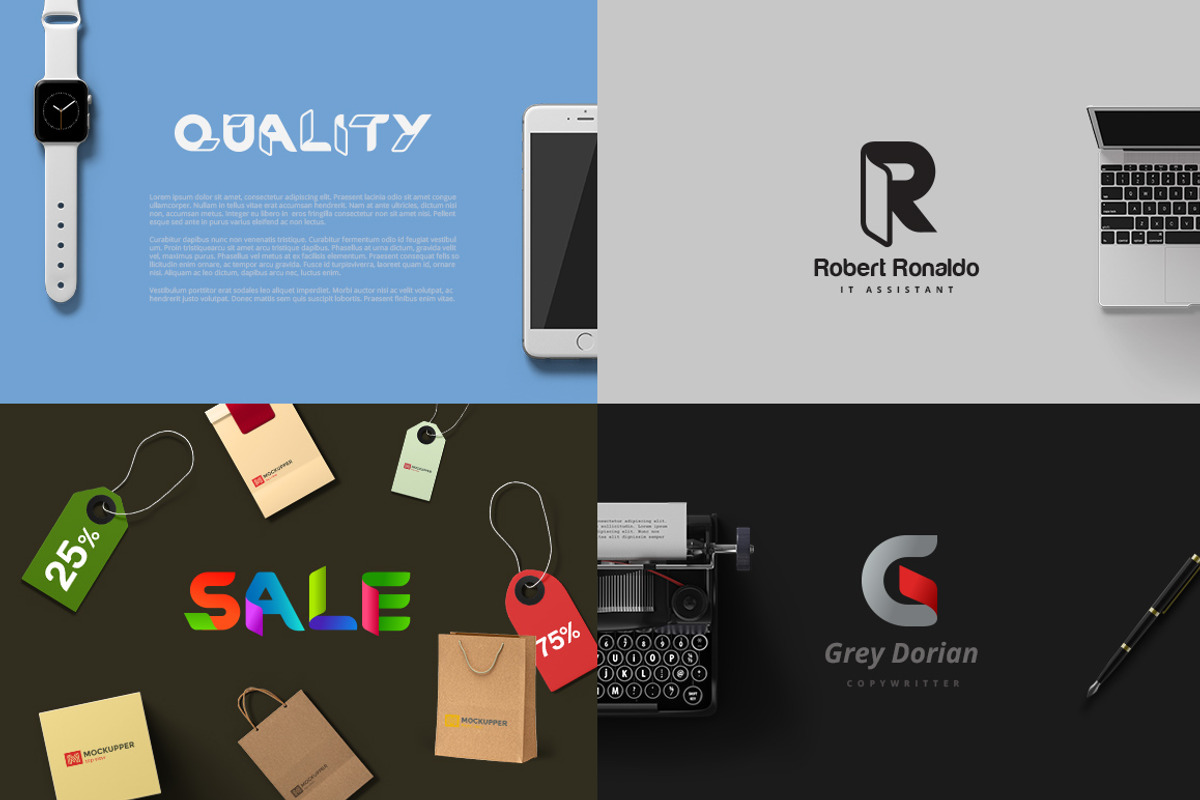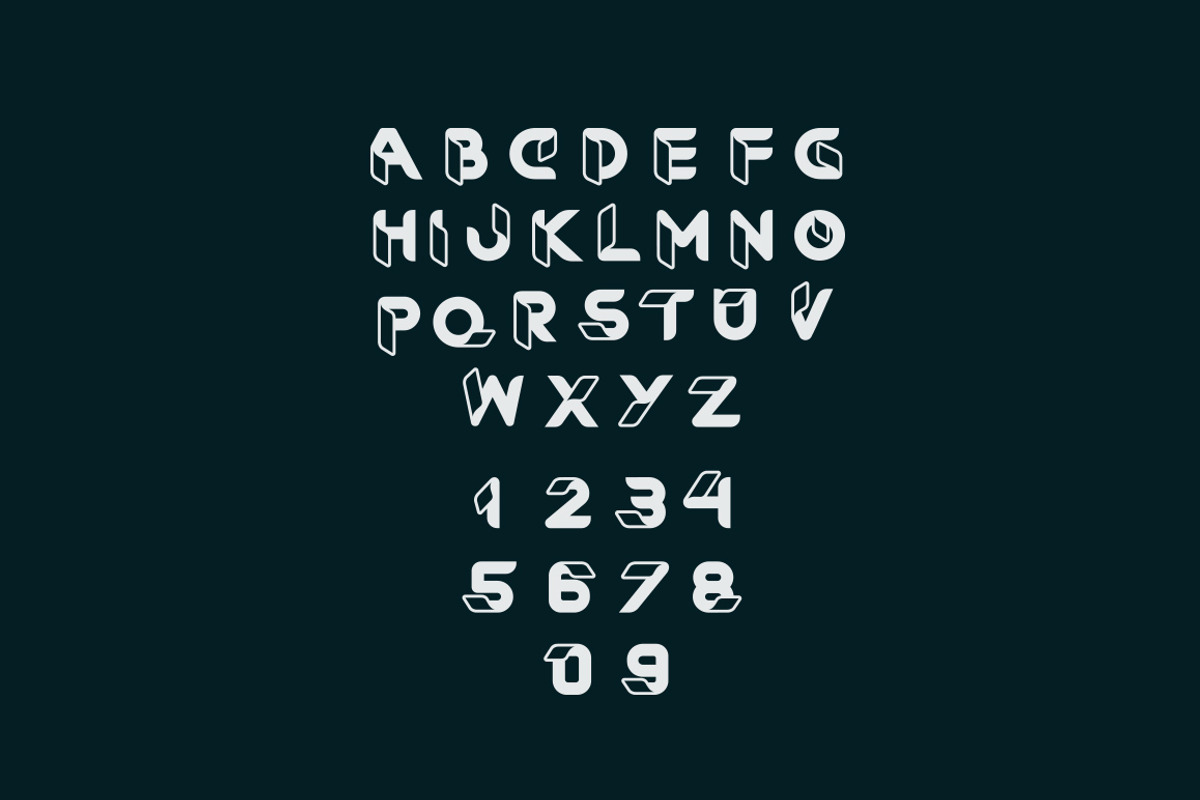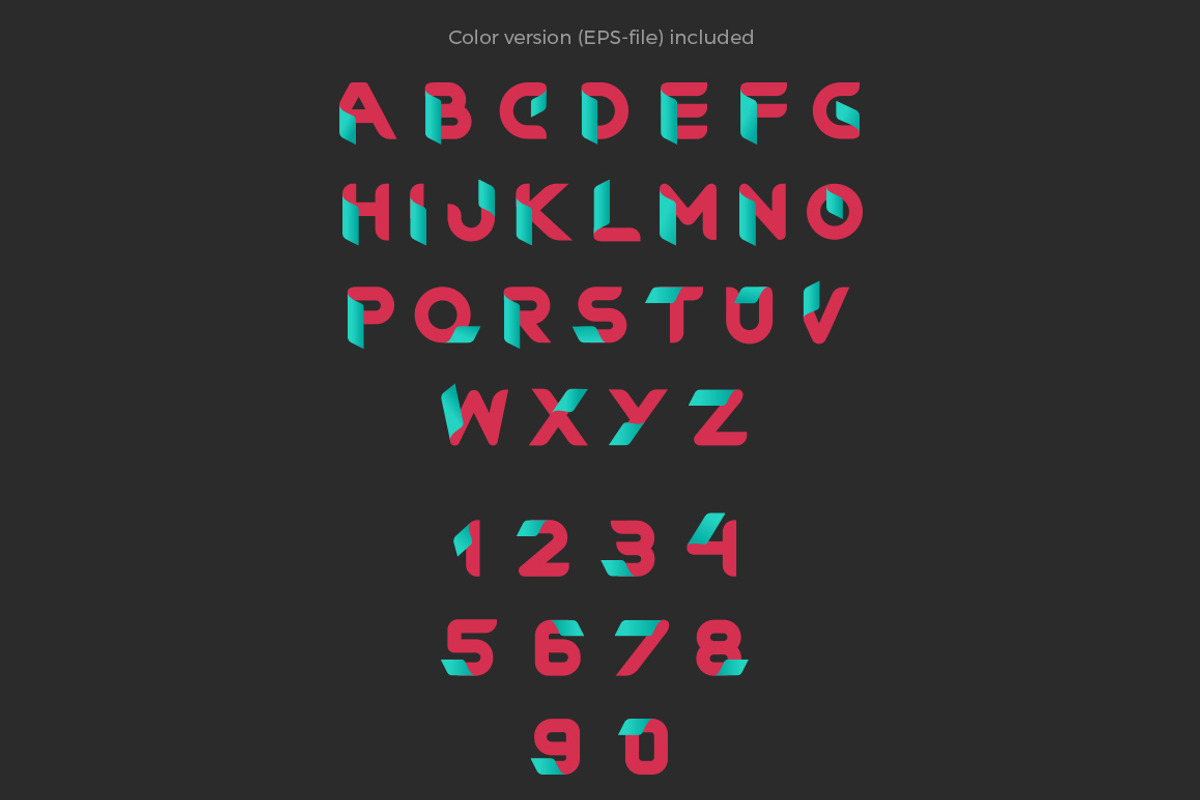
RibOne font
RibOne font by Sentavio is a font selected for branding, posters, packaging, typography.
Why RibOne font is worth a look
RibOne font by Sentavio fits naturally into Branding, posters, packaging, typography.